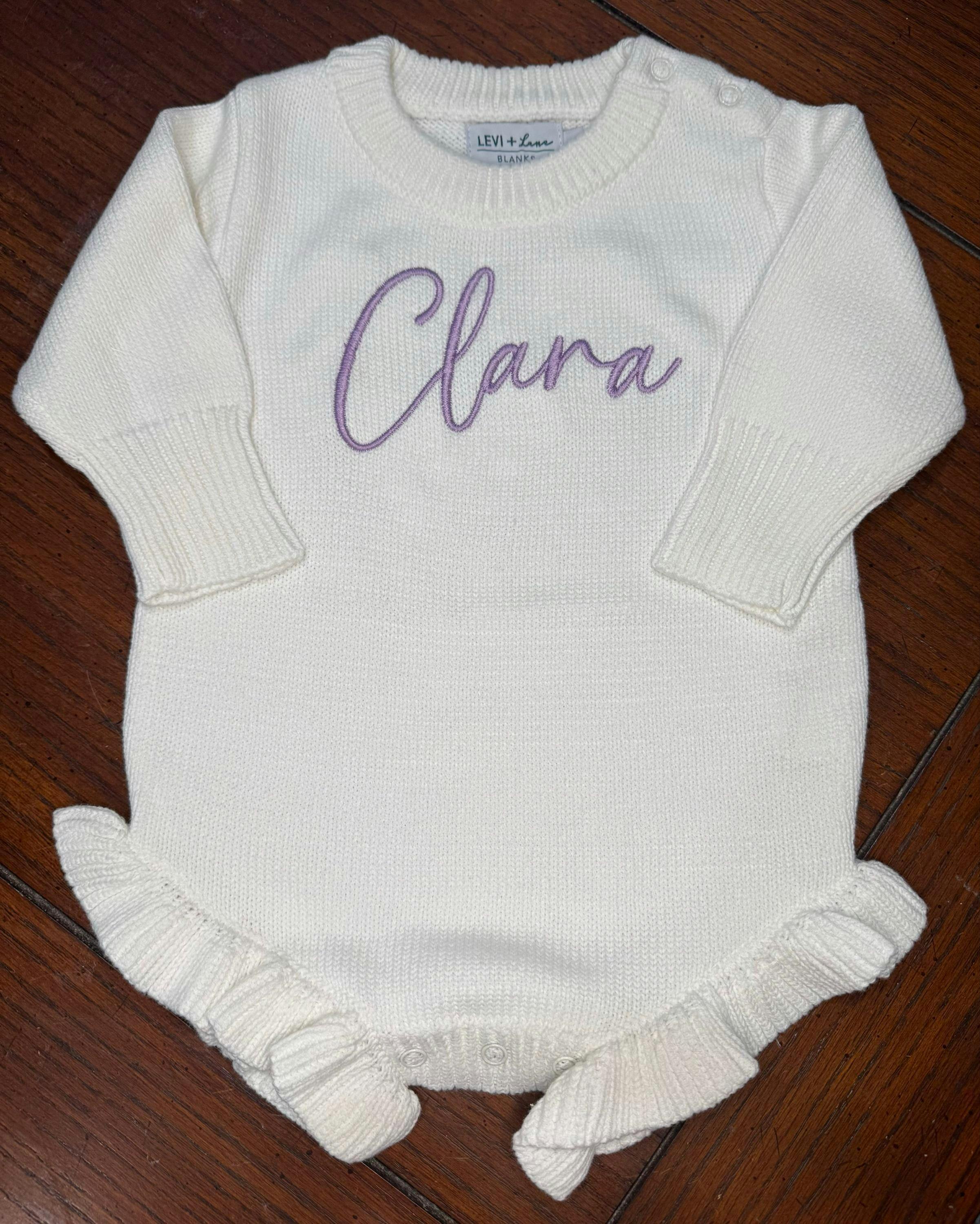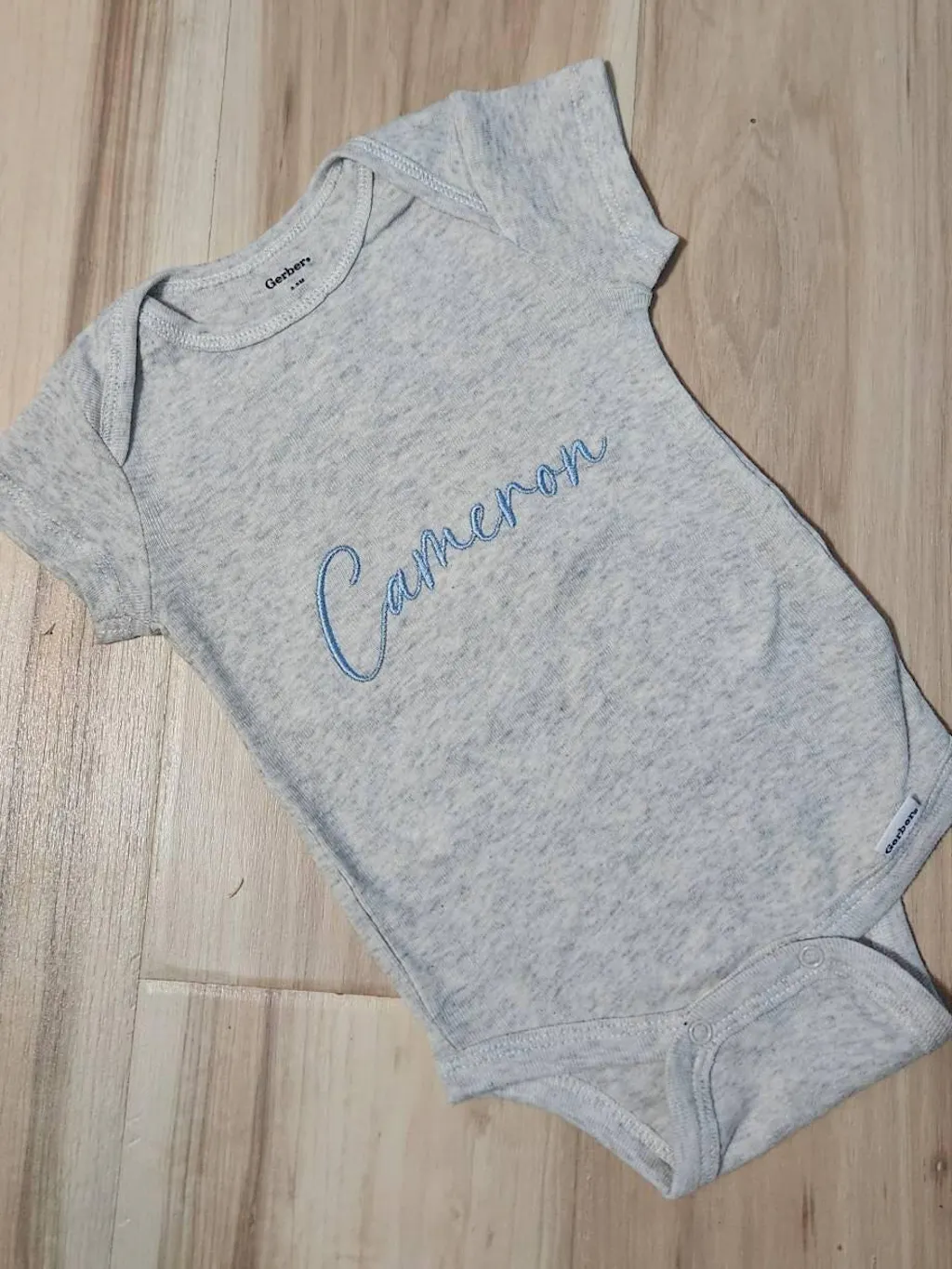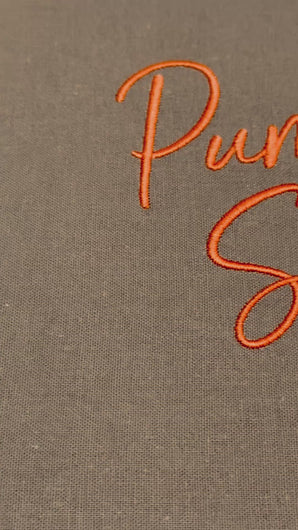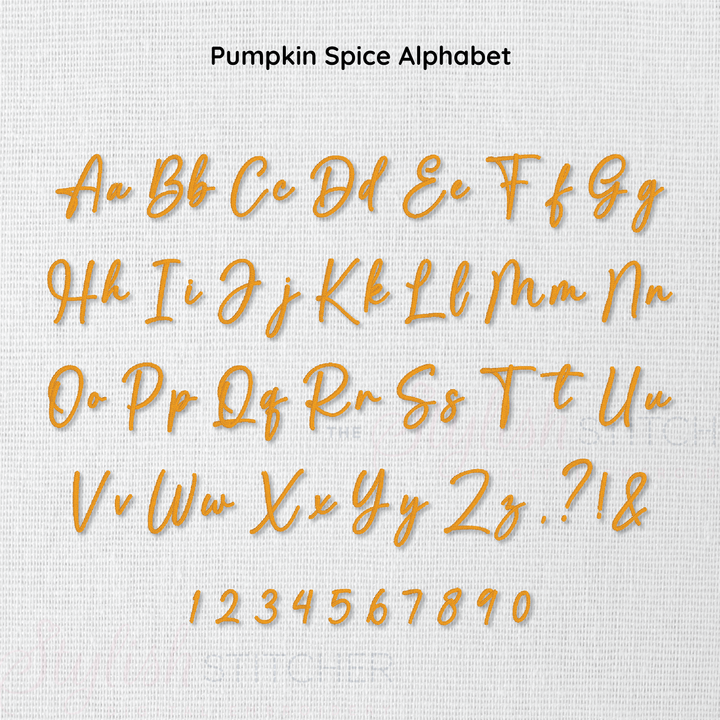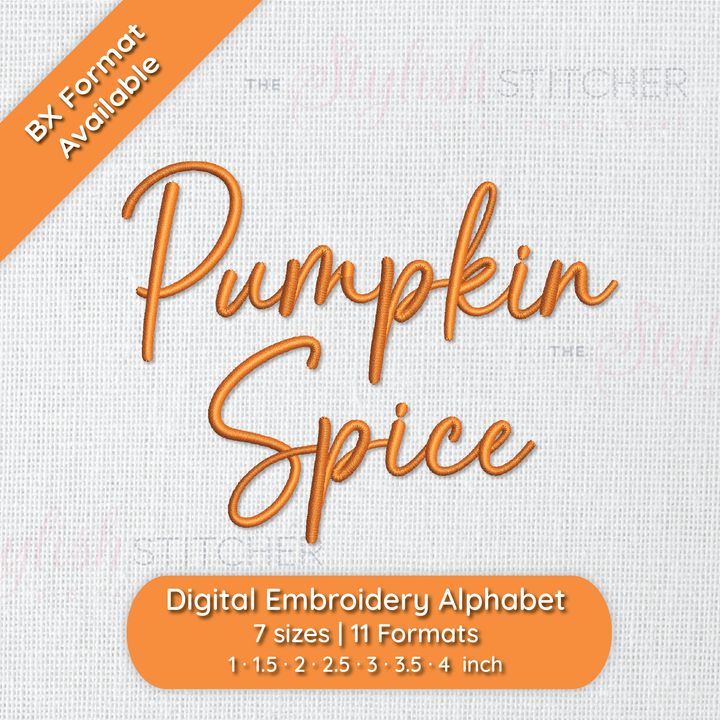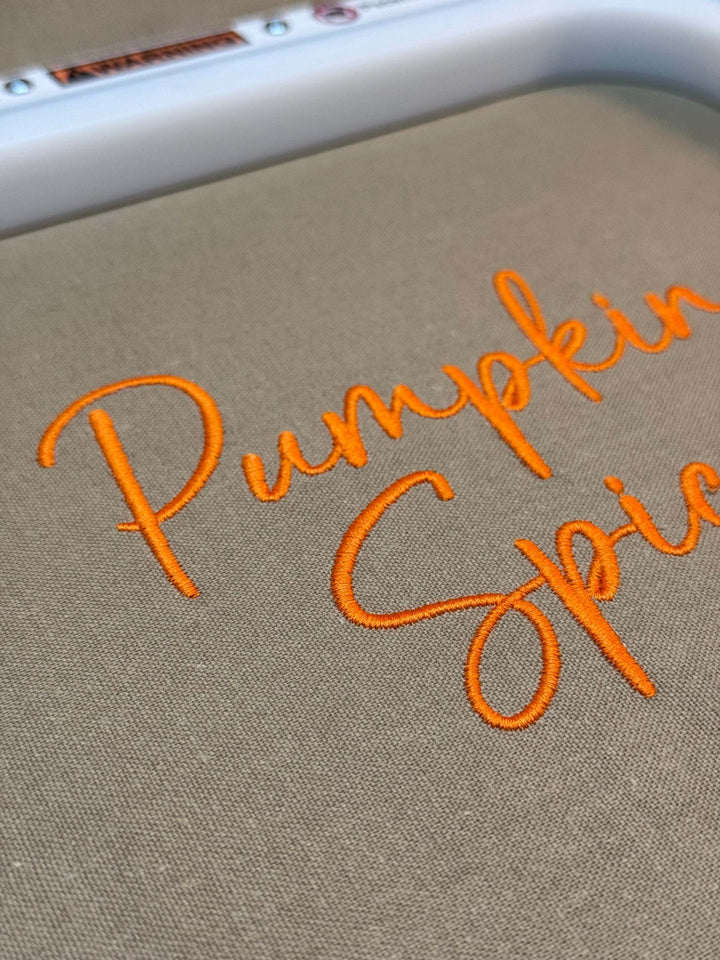
Photograph of stitched out Pumpkin Spice embroidery font
Photograph of stitched out Pumpkin Spice embroidery font alphabet
Video showcasing stitched out Pumpkin Spice font
Close up photograph of stitched out Pumpkin Spice embroidery font
Pumpkin Spice Digital Embroidery Font
Pumpkin Spice is the perfect embroidery alphabet for adding warmth and character to your fall projects. With its smooth, hand-drawn cursive, it effortlessly captures the cozy spirit of the season. Ideal for monograms, personalized gifts, or seasonal decor, Pumpkin Spice’s flowing script adds a touch of elegance and autumnal flavor to any design. Whether you’re working on fall crafts, Thanksgiving projects, or simply want to infuse your work with a bit of seasonal magic, Pumpkin Spice is the go-to choice for bringing warmth and personality to your stitching.